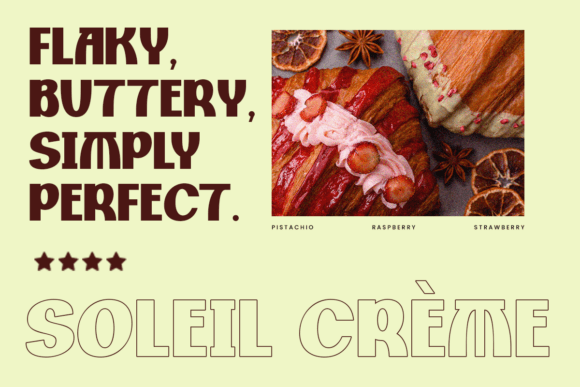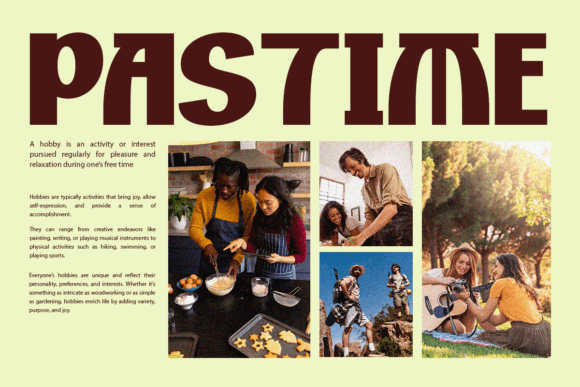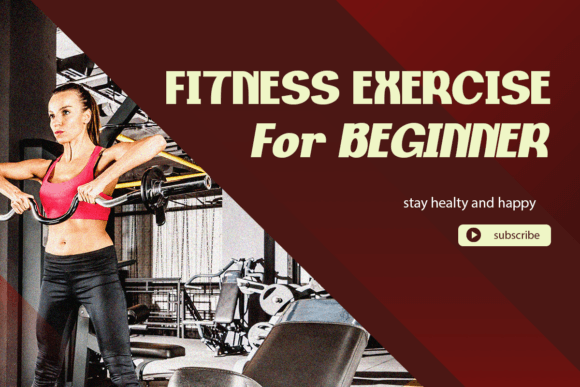
Introduction to Quadline Font
You’ve got a creative project that needs to stand out from the crowd, but you’re stuck on the perfect font. You’ve scrolled through countless design resources, but none of them seem to capture the bold, eye-catching vibe you’re going for. That’s where the Quadline Font comes in – a game-changing sans serif font that’s built for strength and versatility.
As a designer, you know that the right font can make all the difference in bringing your creative vision to life. And with the Quadline Font, you’ve got a powerful tool at your disposal. Its clean yet striking style is perfect for projects that need a commanding visual presence, from posters and advertisements to social media graphics and editorial layouts.
Key Features of Quadline Font
- Quadline Font is a high-quality, free design resource ideal for various creative projects.
- With over 100 glyphs and a range of weights, Quadline Font offers versatility and expressiveness for creative projects.
- Perfect for use in logos, typography, and other design elements where a clean, modern aesthetic is desired.
Honest Review: Quadline Font
I’ve been working on a creative project and I was looking for a clean and modern font to match my design aesthetic. I stumbled upon the Quadline Font, which seemed to fit the bill. After giving it a try, I’m excited to share my honest review with you.
- ✨ High-quality typography with crisp and clear lines
- ✨ Great for use in various design contexts, from headlines to body text
- ⚠️ Limited character set, which may not be suitable for projects requiring extensive typing
- ⚠️ Not ideal for use in small text sizes, as the lines may become too thin and hard to read
Overall, I’m impressed with the Quadline Font. It’s a great addition to any design resource collection, and I appreciate the fact that it’s available for free download. While it has its limitations, I think it’s a fantastic choice for creative projects requiring a modern and clean aesthetic.
The Quadline Font is a versatile and modern design resource that can elevate any creative project. This high-quality font is available for free download, making it an excellent choice for designers and artists.
Getting the Most Out of the Quadline Font
Some tips for getting the most out of the Quadline Font include using it in combination with other design elements, experimenting with different font sizes and colors, and using it in creative ways, such as overlaying text on images.
The Quadline Font is suitable for a wide range of creative projects, including branding, marketing materials, and digital art. Its versatility and high quality make it an excellent choice for designers and artists looking for a reliable design resource.
No, the Quadline Font does not have a transparent background. However, its high-quality design makes it perfect for use on both light and dark backgrounds, and its bold lines ensure that it stands out in any design.